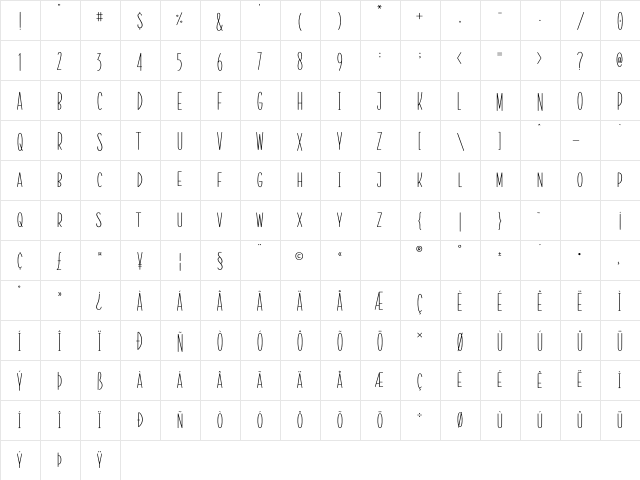
LaQuestro Regular Font Preview
LaQuestro Regular
LaQuestro Regular Font Details
| Designer | Mukhlis Muhammad |
Design Context for LaQuestro Typeface
LaQuestro takes a measured approach to typography — its balanced proportions and neutral character make it a reliable workhorse for both digital and print work.